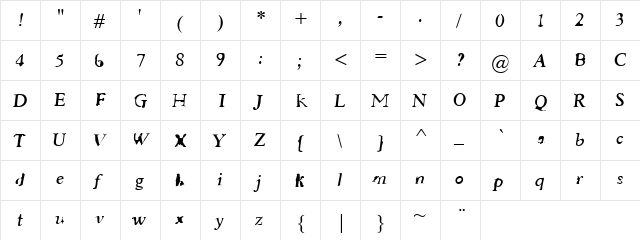
Suffrage GSD
Design Context for Suffrage Typeface
Suffrage is a composed and adaptable typeface that performs quietly and consistently across a wide range of design contexts.